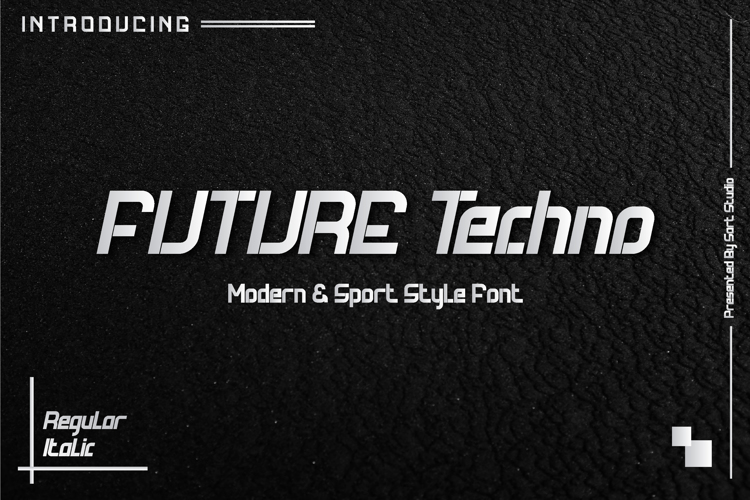
Future Techno Italic Font
Future Techno Font is a modern and futuristic themed font, very suitable for the needs of sports, automotive and technology themes. This font consists of regular and italic. very easy to install and support the software design that is on a mac or pc.